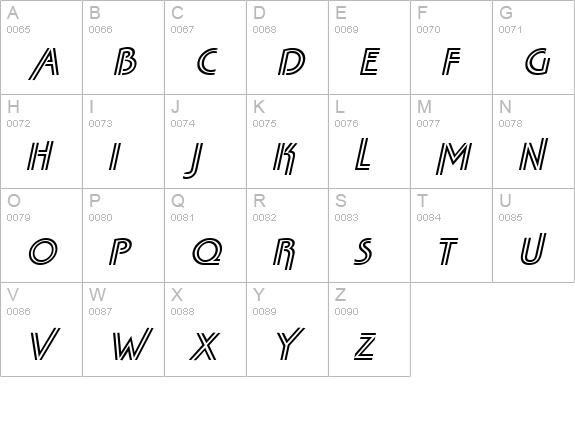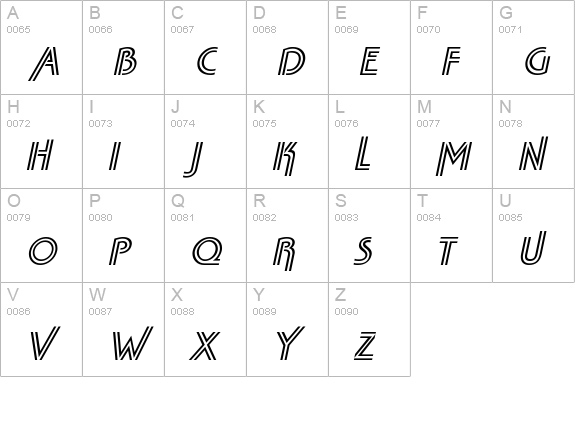
TabathaFresco Italic Font Details
TabathaFresco Italic is a distinctive, italic variant in the TabathaFresco typeface family \xE2\x80\x94 well suited to design and typography projects.
TabathaFresco Italic is a stunningly elegant font that exudes a sense of sophistication and style. With its delicate and curvaceous letterforms, this typeface captures attention and adds a touch of elegance to any design project. The italicized nature of TabathaFresco Italic adds a sense of movement and fluidity, lending a dynamic energy to your typography. It is perfect for creating eye-catching headlines, elegant invitations, or refined logos that demand attention and leave a lasting impression. What sets TabathaFresco Italic apart is not only its exquisite design but also its accessibility. This font is freely available to download at FontsMarket.com, making it easily accessible to designers, creatives, and enthusiasts alike. Whether you're working on a personal project or a professional endeavor, TabathaFresco Italic offers you the opportunity to elevate your designs with its timeless beauty and effortless sophistication. Its versatility allows it to be used across a wide range of applications, from print materials to digital designs. Add a touch of class to your next project with TabathaFresco Italic. Download it today from FontsMarket.com and let your creativity flourish with this exquisite and freely available font.